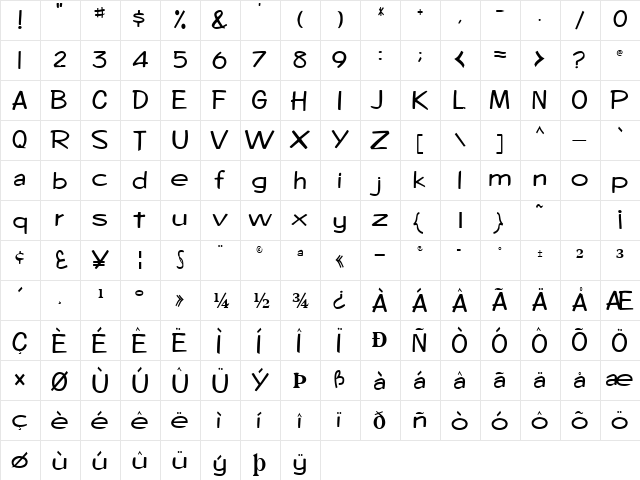
AlexOne83 Regular
Design Context for AlexOne83 Typeface
AlexOne83 is a composed and adaptable typeface that performs quietly and consistently across a wide range of design contexts.